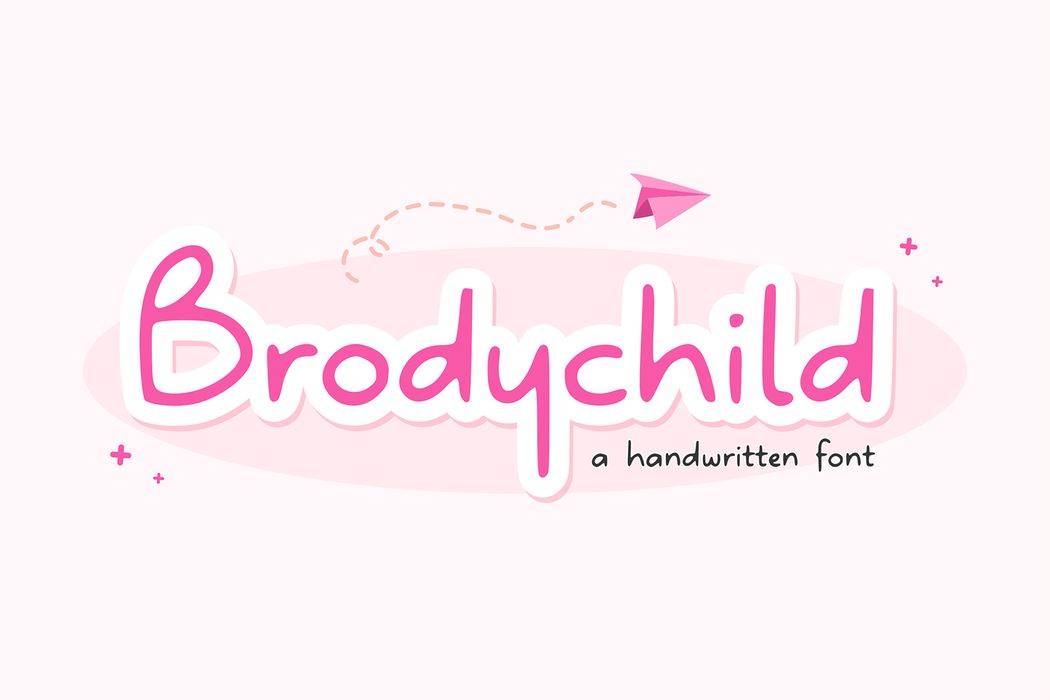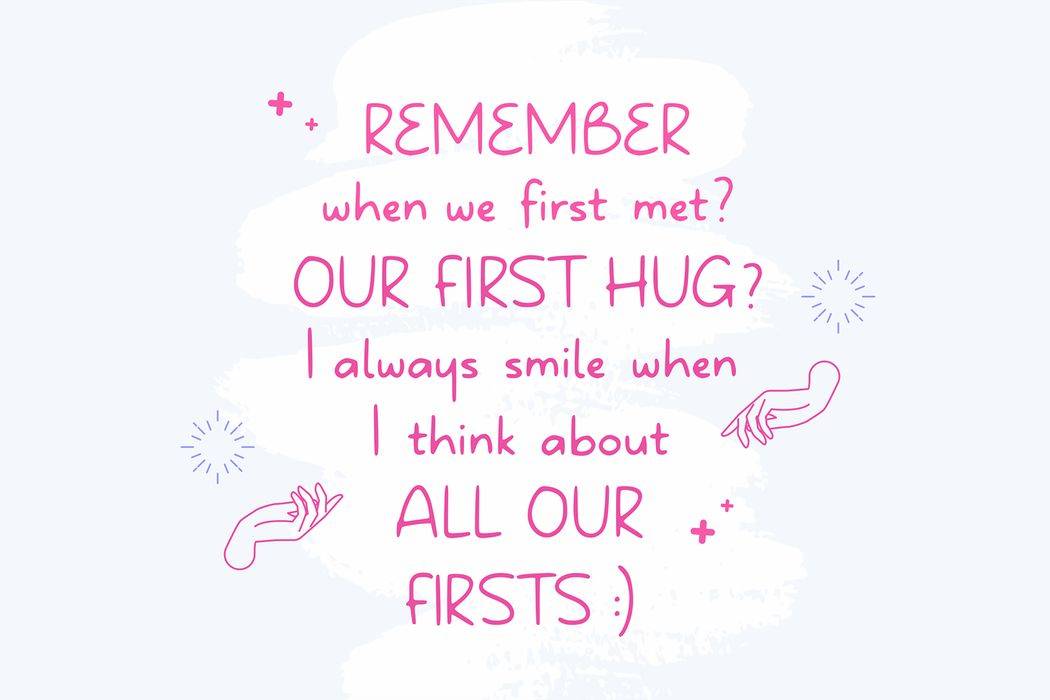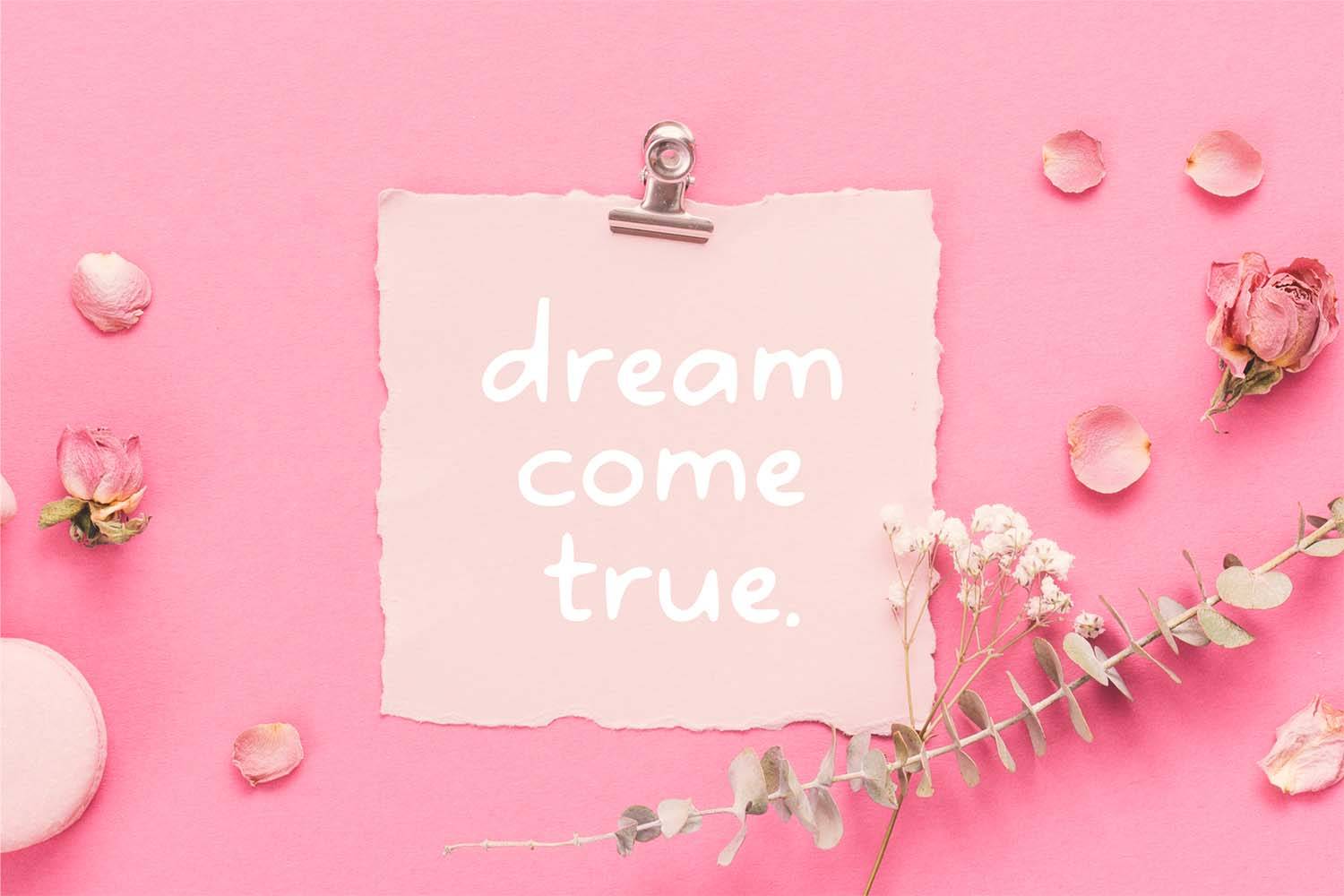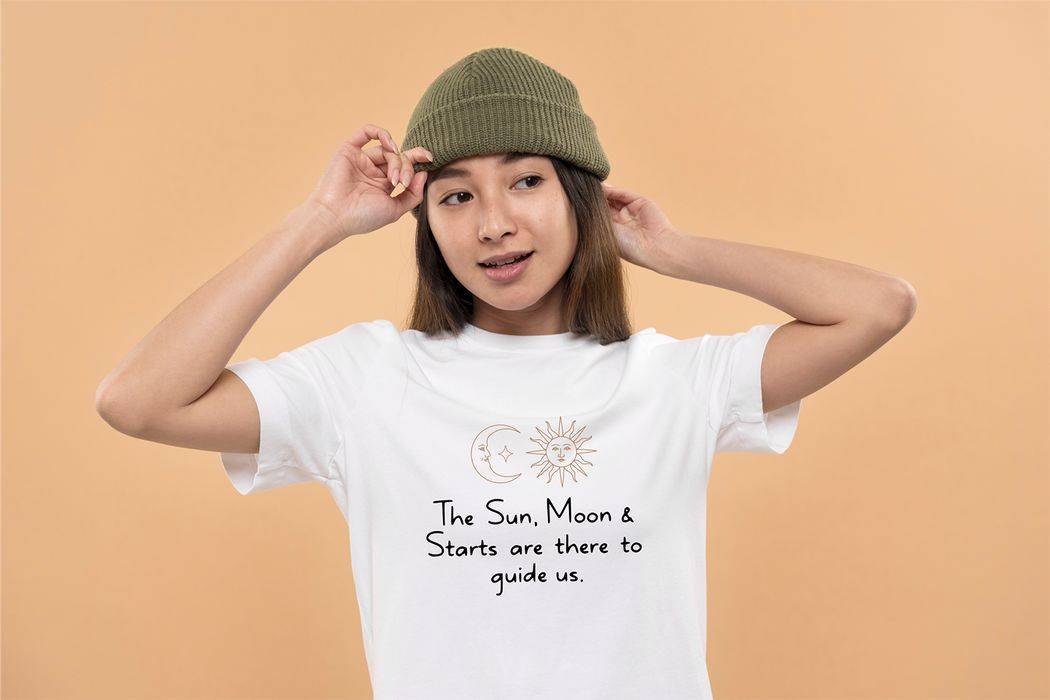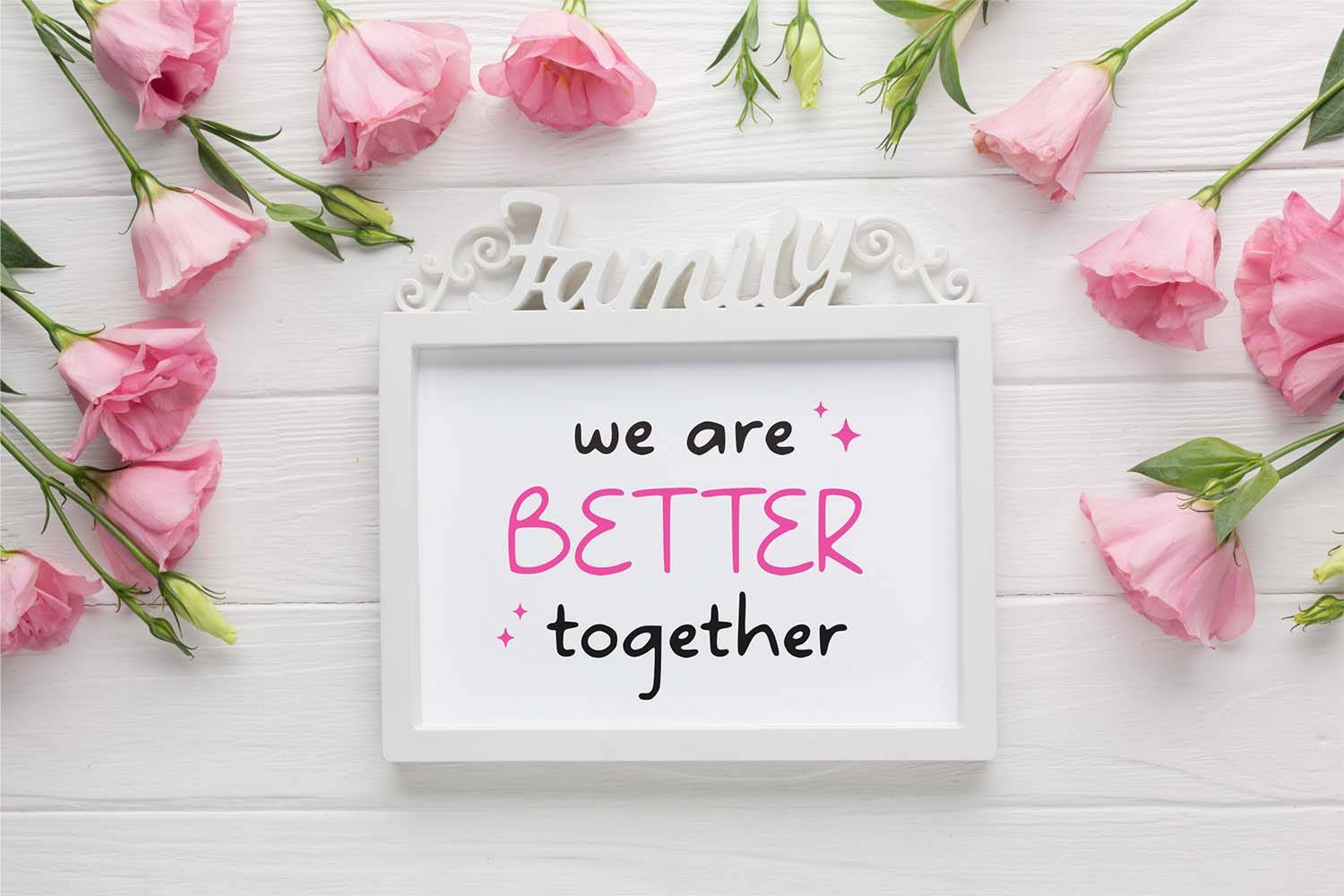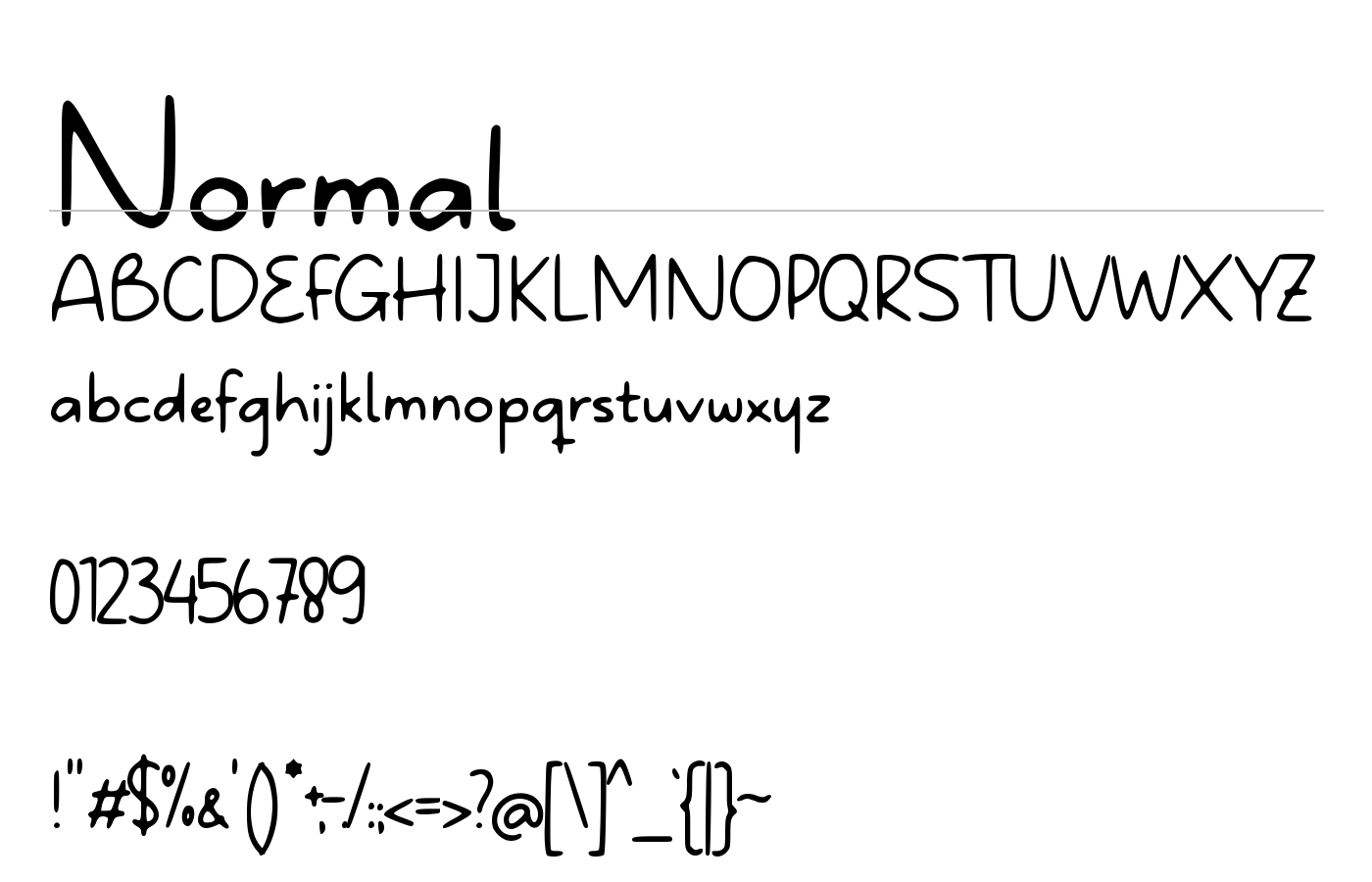
Brodychild is a playful, hand-drawn sans serif font with a casual and friendly feel. Its irregular letterforms and tall x-height give it an approachable and lively personality, making it perfect for informal designs, children’s books, or creative branding that wants to convey warmth and spontaneity. This font works best in headlines, signage, and packaging where a personal touch and unique character are desired.
Brodychild Font
About Brodychild Font